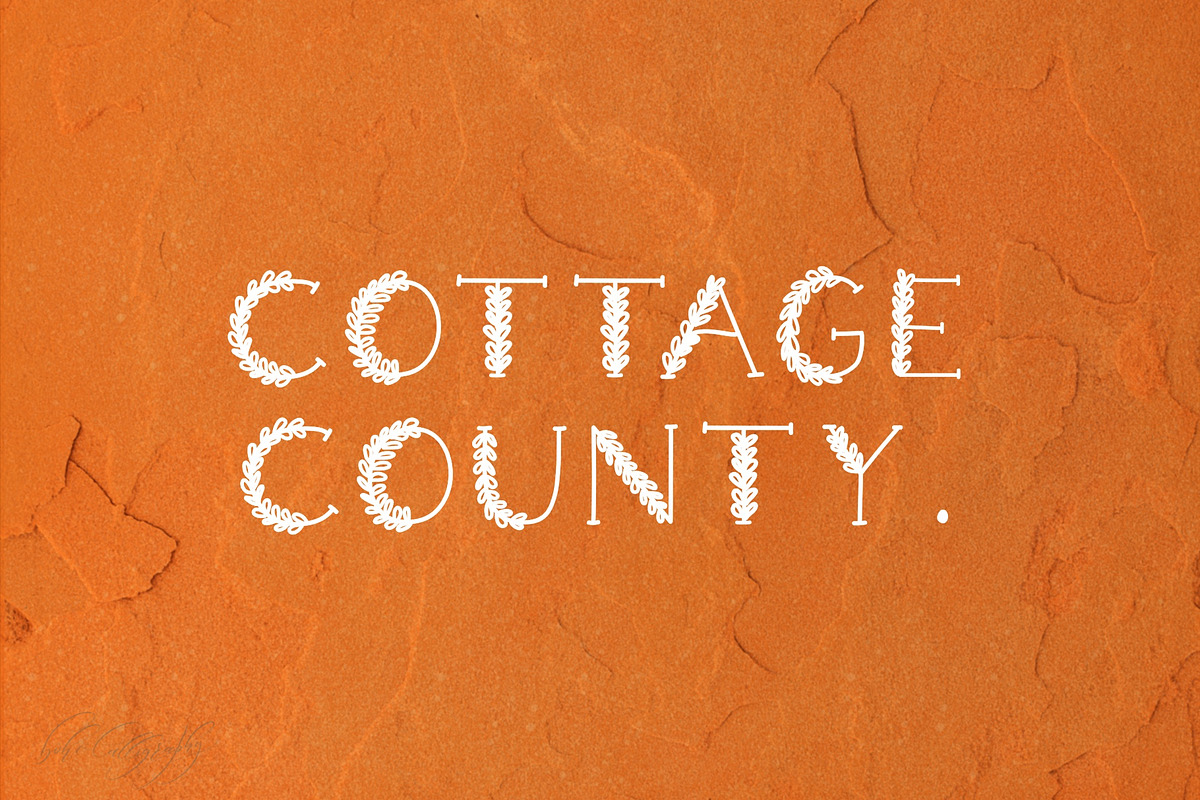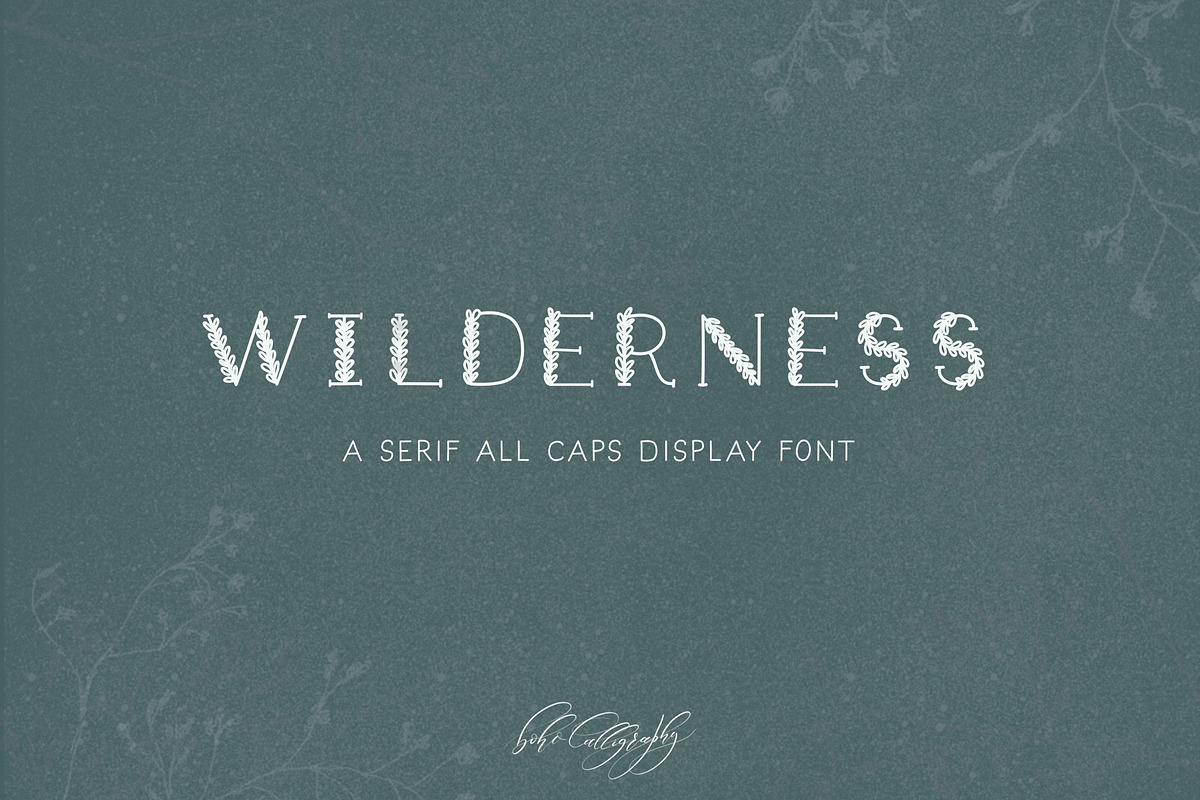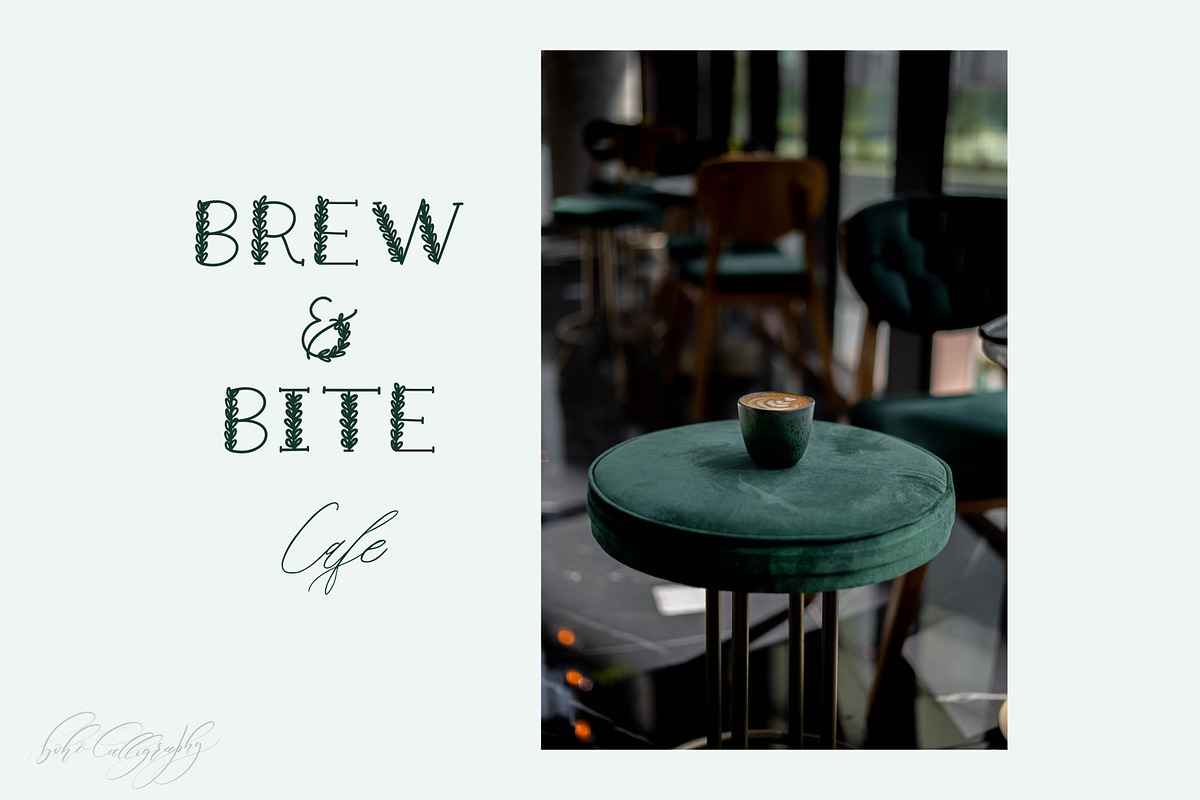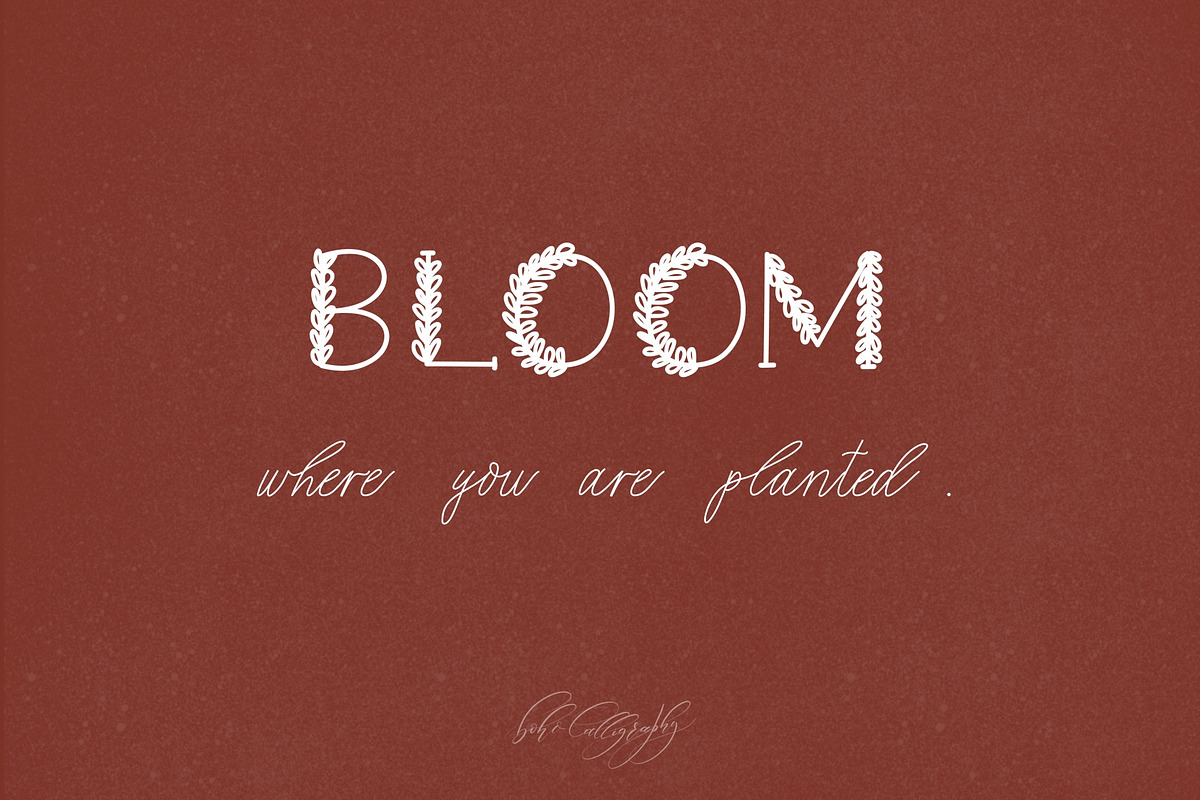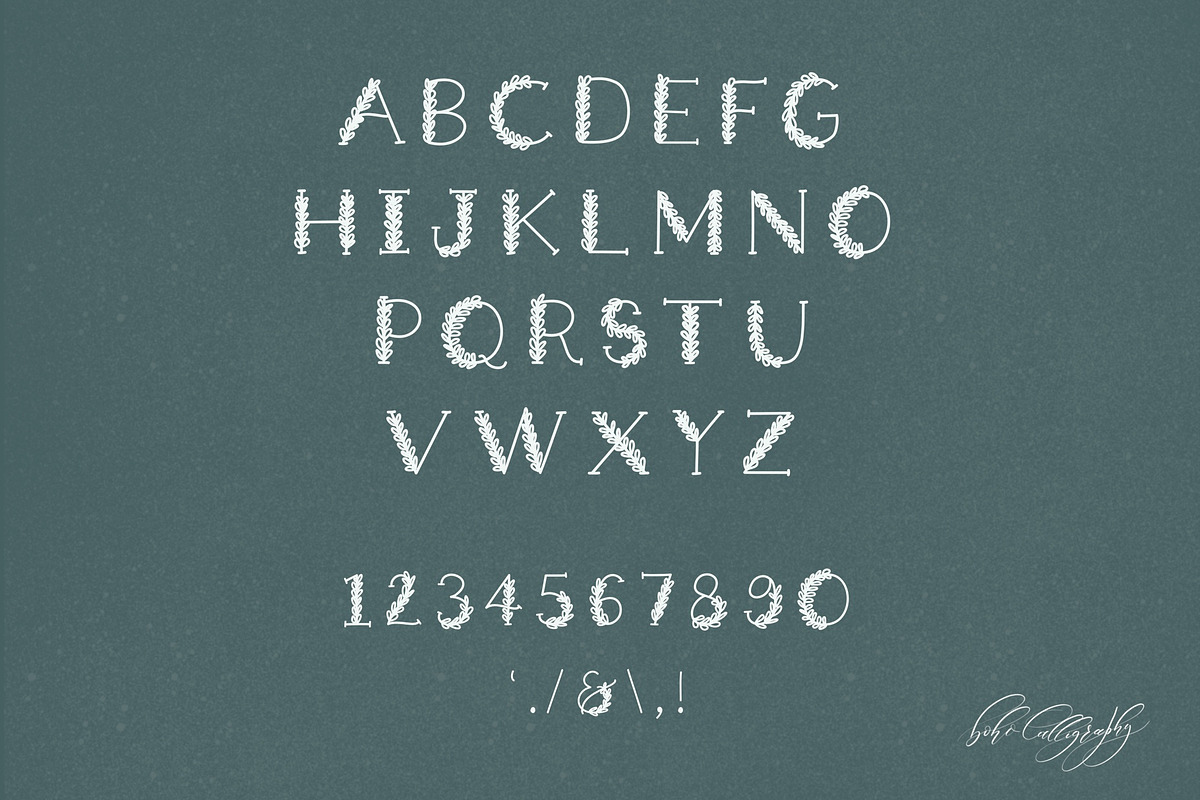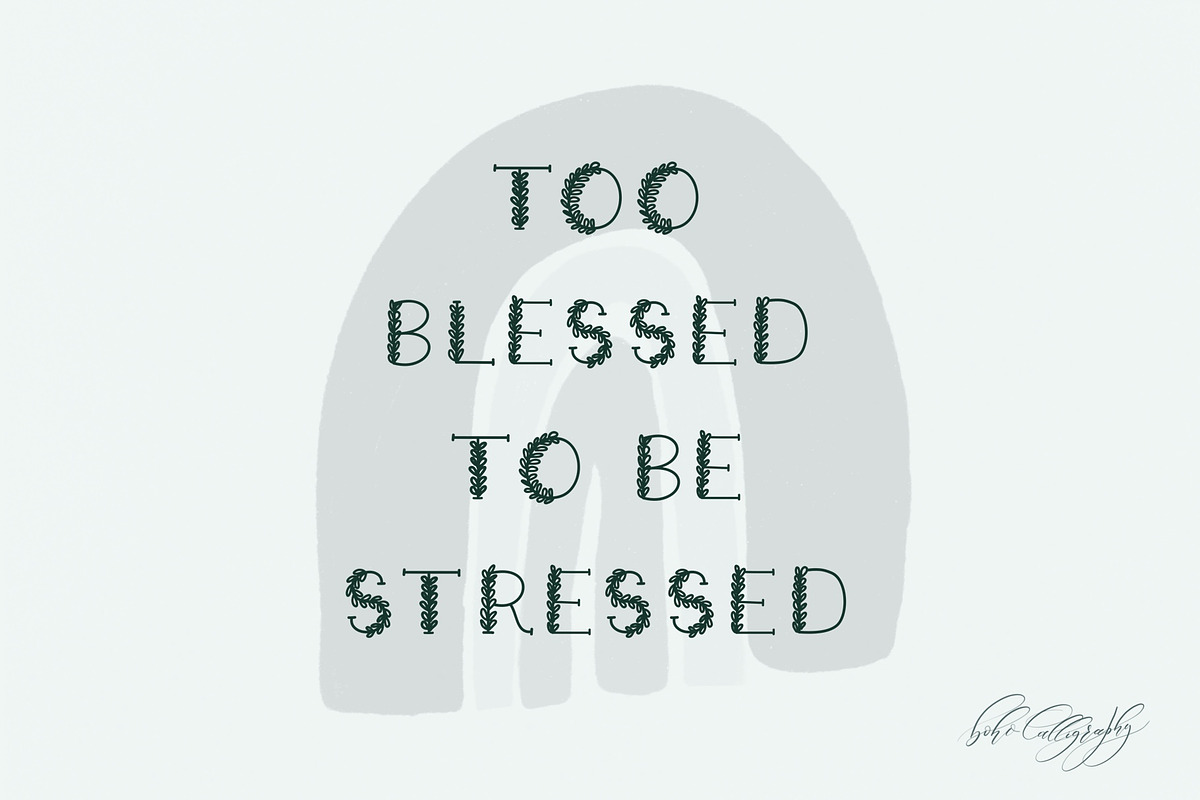
Wilderness - Serif Display Font
Wilderness Font
Wilderness is the all caps serif display font handmade by me inspired by those leaves growing in the wild.
Wilderness is perfect for: logos, branding, wedding invitations, business cards, greeting cards, posters, magazines, social media, planner prints and websites.